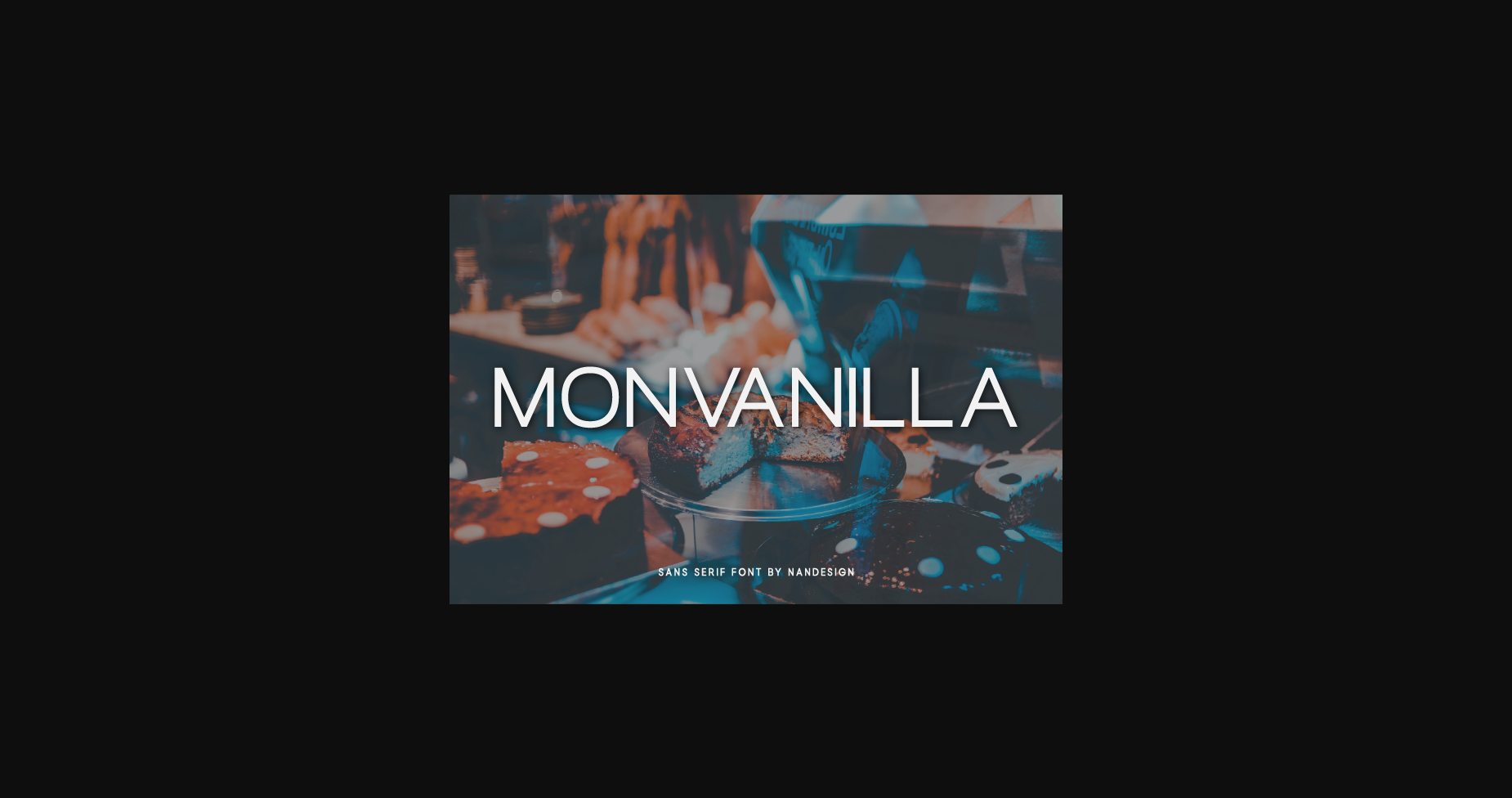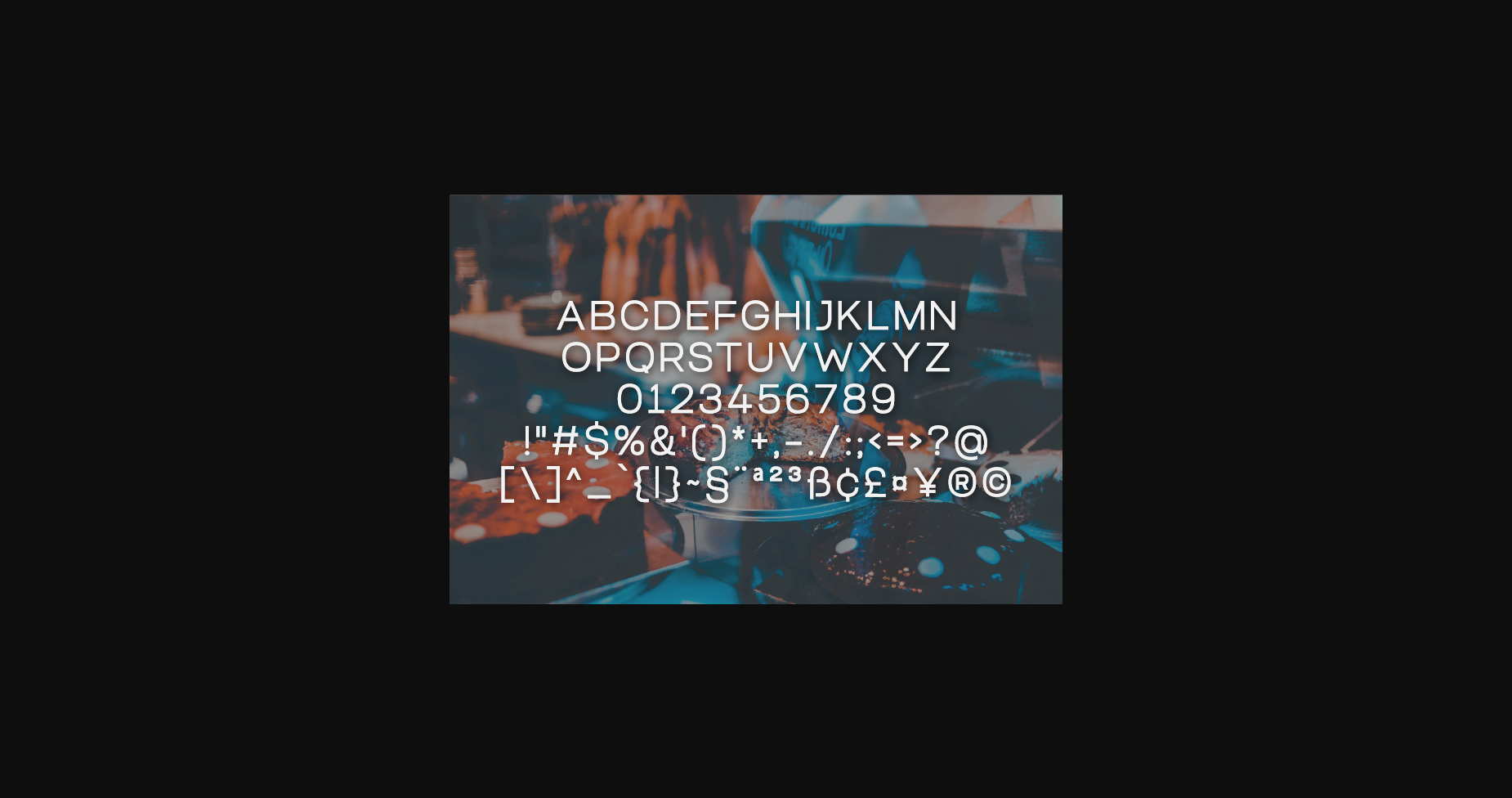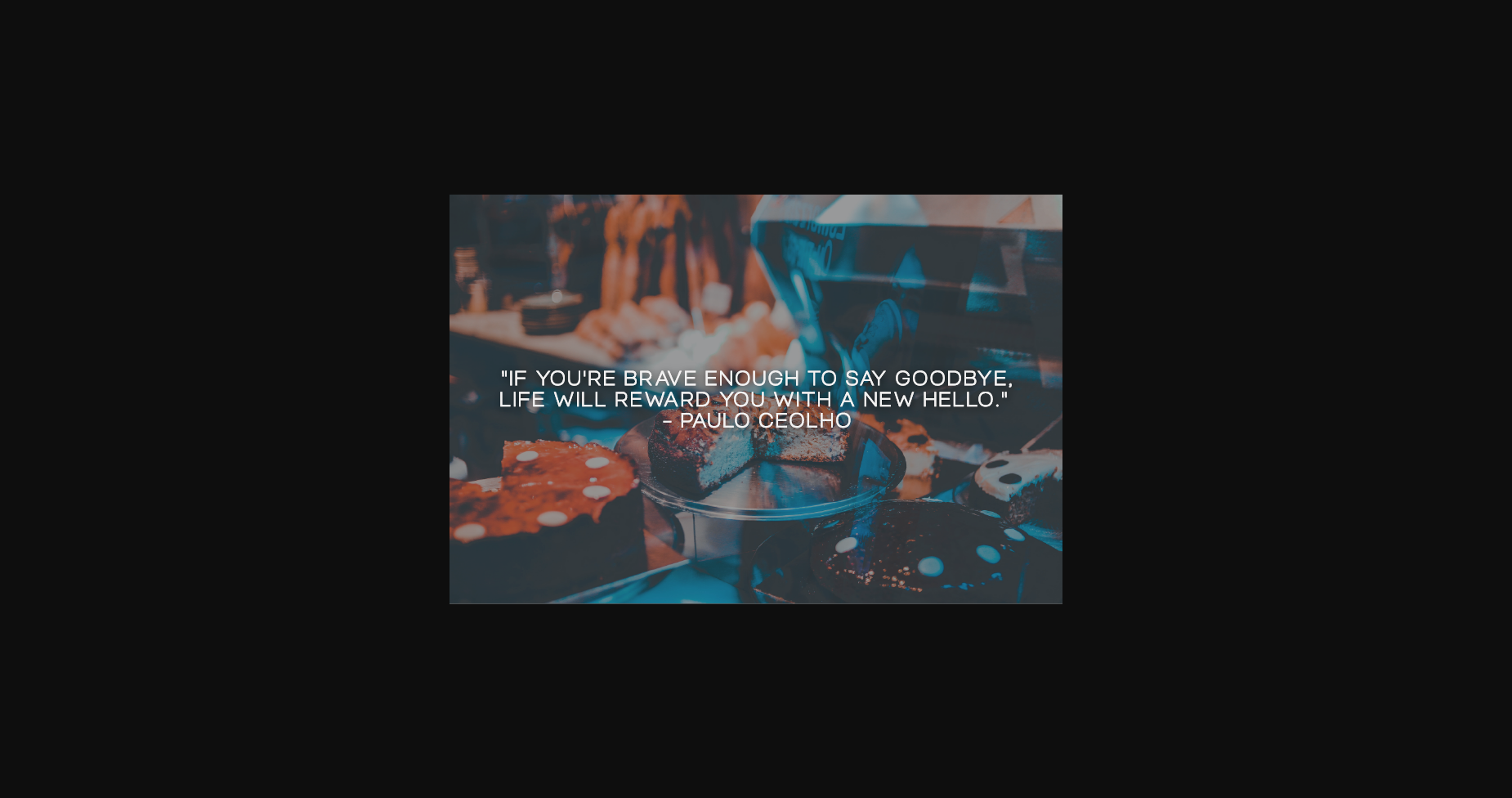
HomeSans Serif FontsMonvanilla Font Sans Serif Fonts Monvanilla Font FacebookXPinterestWhatsApp 1 of 5 ... Monvanilla Font Poster 2... Monvanilla Font Poster 3... Monvanilla Font Poster 4... Monvanilla Font Poster 5... About Monvanilla Font Monvanilla is a minimal and neat sans serif font. It can easily be matched to an incredibly large set of projects, so add it to your creative ideas and notice how it makes them stand out! DOWNLOAD NOW People also explored Aladin Font Merveille Font Hello Font Emoji Doodle Font Dolphin Font Sugar Cake Font Pineapple Cake Font Wooden Frame Mockup with Pink Tulip Flowerina Font 341 0 TagsMonvanilla Font Previous articleLemqonse FontNext articleLestpoem Font LEAVE A REPLY Cancel reply Comment: Please enter your comment! Name:* Please enter your name here Email:* You have entered an incorrect email address! Please enter your email address here Website: Save my name, email, and website in this browser for the next time I comment. Personal Use Free Just Smile Personal Use Free Read more about this font Artisan Signature Personal Use Free Read more about this font Hello Holiday Personal Use Free Read more about this font Shnobel Personal Use Free Read more about this font BLOG Fonts That Capture the Spirit of New York City New York City is more than just a place—it’s an experience, a rhythm, a visual language... Best Fonts for T-Shirt Design – Top 2025 Picks How to Install and Use Fonts on Windows, macOS, and Web Projects Modern Sans-Serif Fonts That Brands Love in 2025